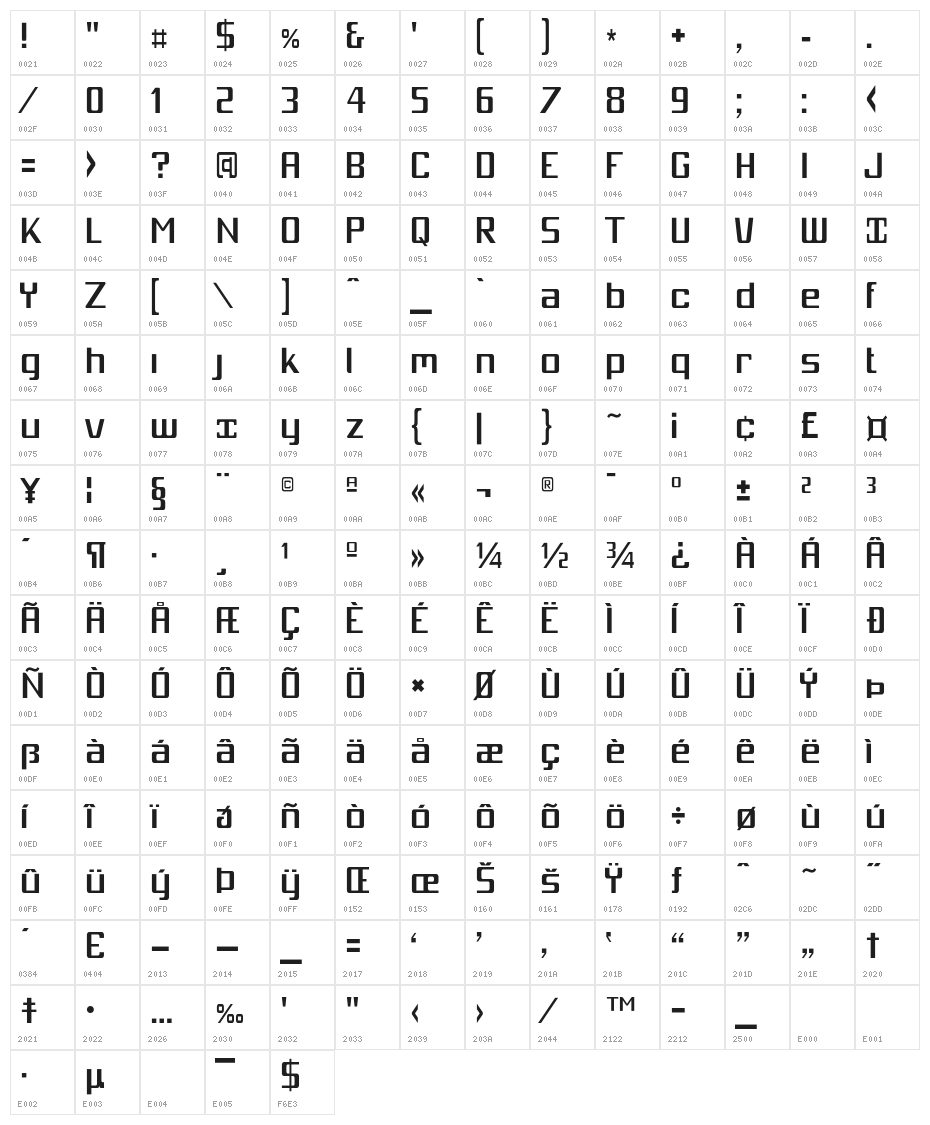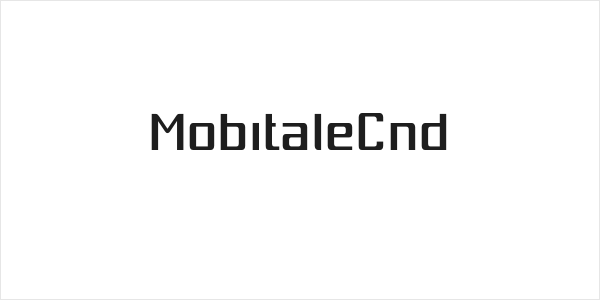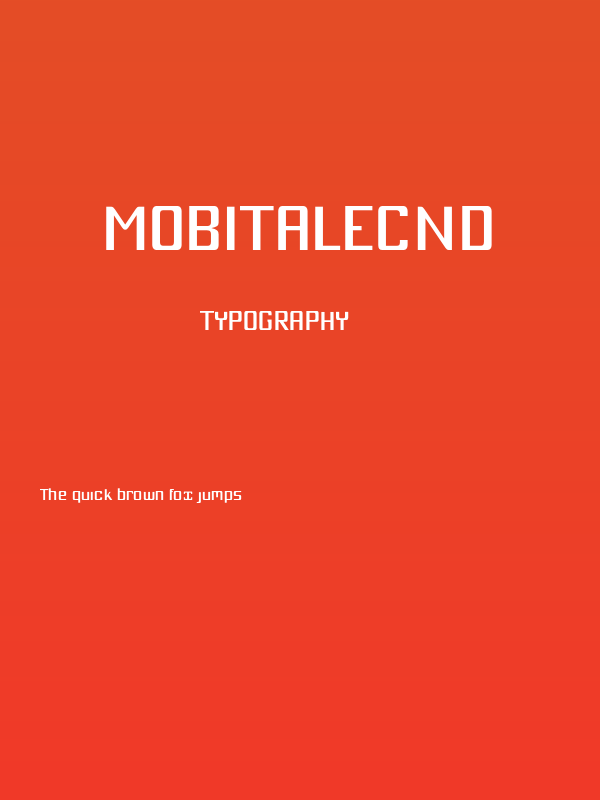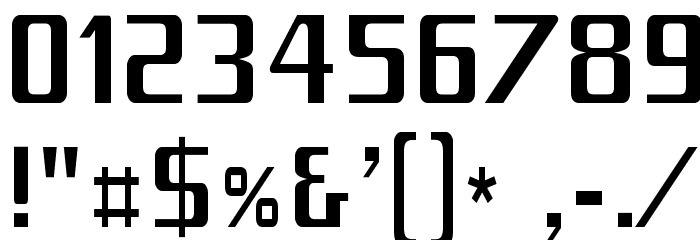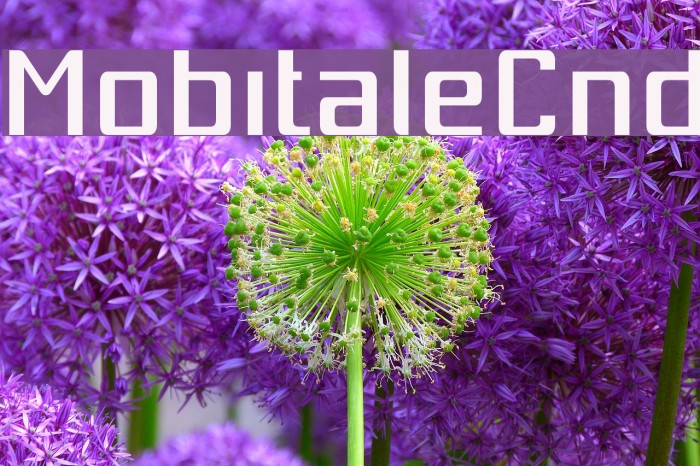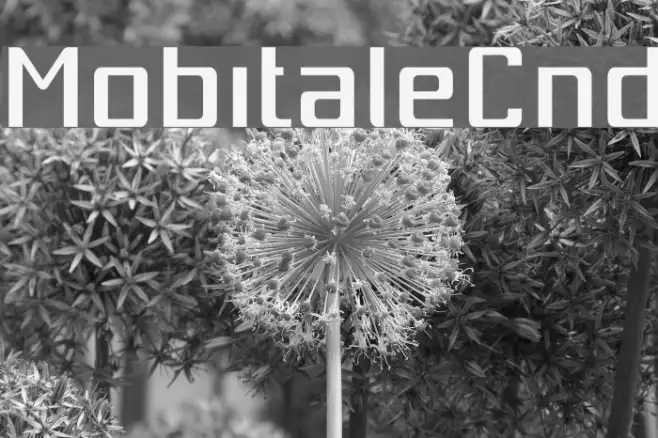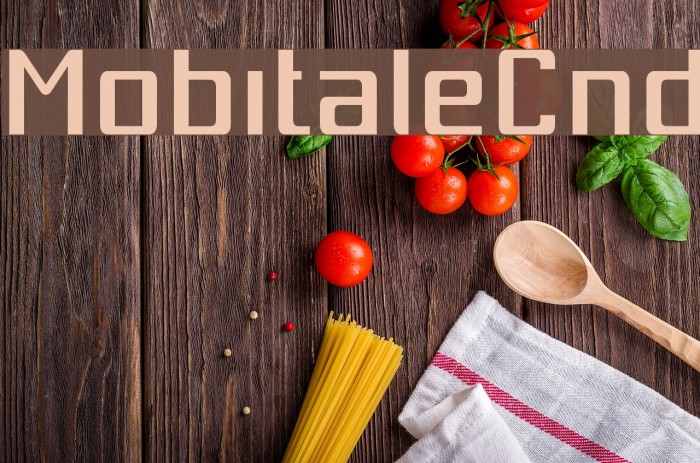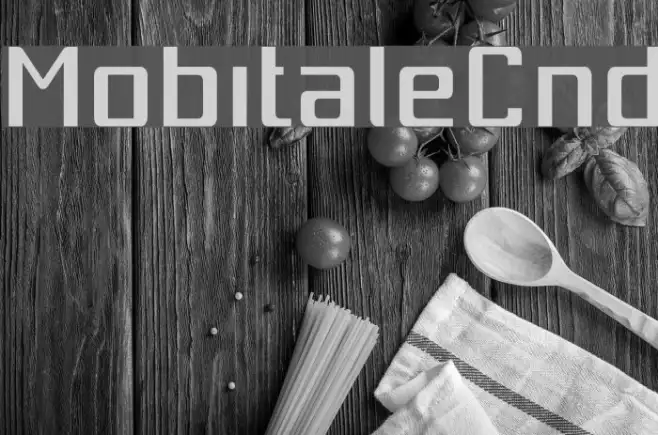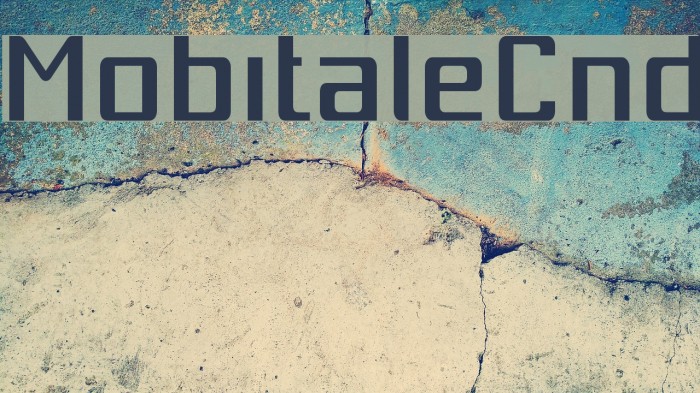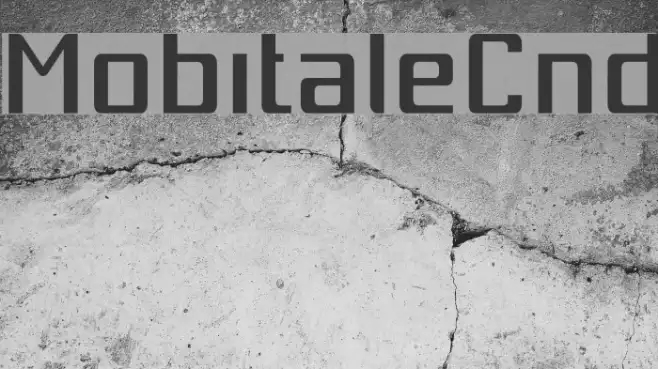
MobitaleCnd Font
MobitaleCnd Description
This font features a modern, geometric design with a strong emphasis on clean lines and a structured appearance. The uppercase letters are bold and angular, with a uniform height that creates a cohesive look. The lowercase letters maintain the geometric style, offering a consistent visual flow. Numbers are designed with the same precision, ensuring readability and a contemporary feel. Special characters are crafted to match the overall aesthetic, making this font versatile for various applications. Its distinct style is suitable for projects that require a modern and professional touch.
| Use Case | Headlines, Logos, Digital Interfaces |
| Proposed Projects | Ideal for branding, digital interfaces, signage, and editorial design where a modern and professional appearance is desired. |